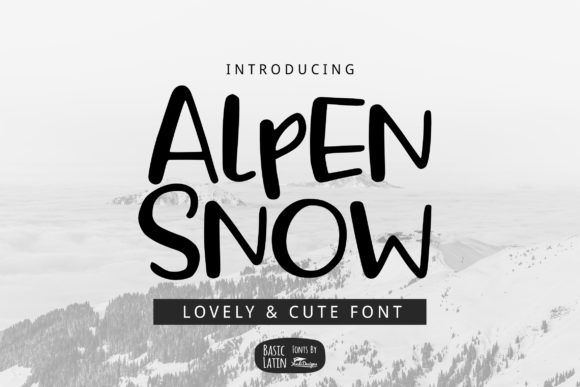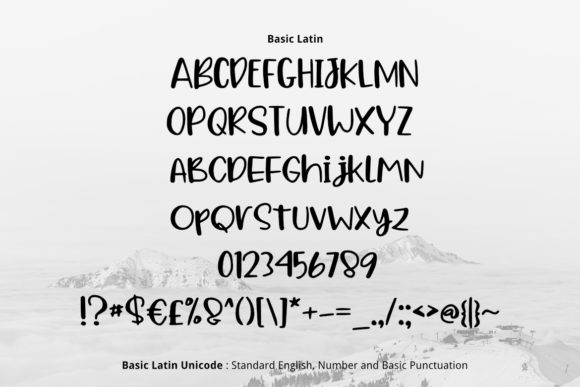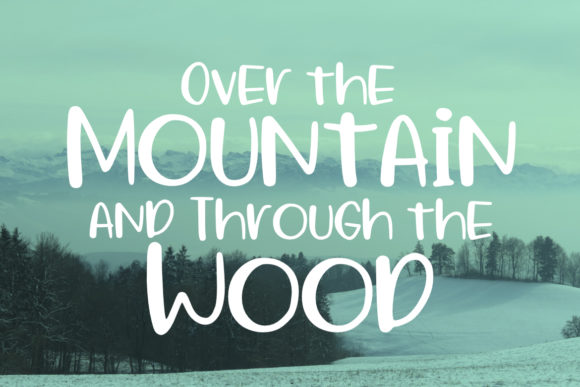
Alpen Snow Font
About Alpen Snow Font
Alpen Snow celebrates the raw beauty of the alps and delivers a truly organic and authentic script font. Use it to turn any DIY project into a true standout!